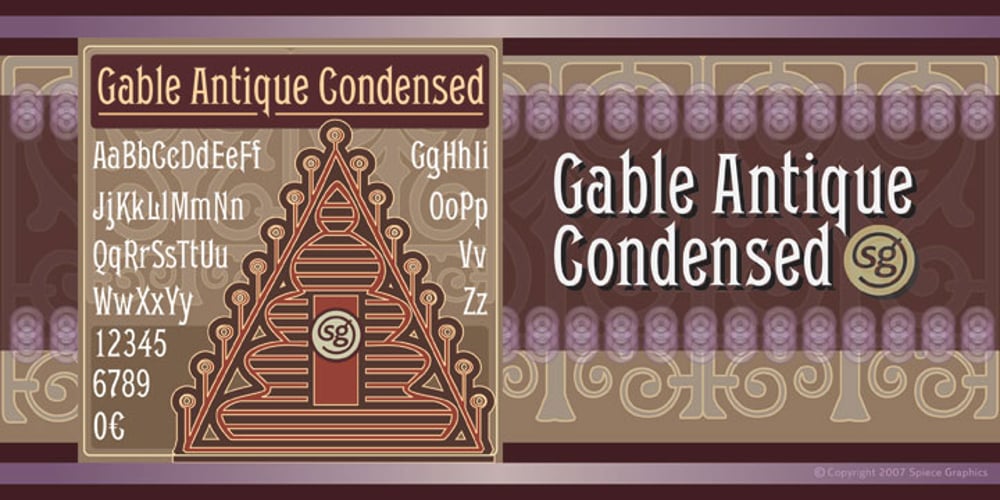
Gable Antique Condensed SG Font Family was designed by published by Spiece Graphics. Gable Antique Condensed SG contains 1 styles and family package options. This Art Nouveau typeface was created around the turn of the 20th century by the Bauer Type Foundry in Germany. A unique foot and head serif treatment is the key design feature in this antique revival. Many vertical stems terminate in what has been called “the swooping, pointy-foot look.” A marvel to look at and a joy to set, Gable Antique Condensed will be a lasting asset to your growing typeface collection. Gable Antique Condensed is also available in the OpenType Std format. Some new characters have been added to this OpenType version. Advanced features currently work in Adobe Creative Suite InDesign, Creative Suite Illustrator, and Quark XPress 7. Check for OpenType advanced feature support in other applications as it gradually becomes available with upgrades.